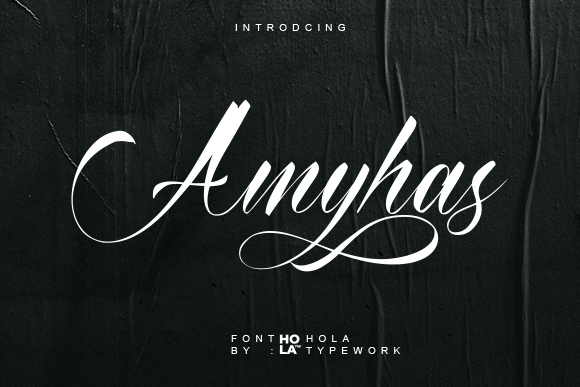
I still remember the frustration of working on a wedding invitation project, determined to find the perfect font that would make it stand out. My client wanted something elegant, modern, and romantic – a font that would make their special day feel truly unforgettable. After hours of scouring the internet, I stumbled upon Amyhas Font ✨. It was love at first sight! With its smooth curves, stylish swashes, and luxurious feel, I knew I had found the one.
Amyhas Font: A Comprehensive Review
Amyhas Font is an elegant and modern signature script font that brings a touch of sophistication to any design project. Inspired by handwritten calligraphy, this font is perfect for designers, crafters, and creative hobbyists looking to add a luxurious and romantic feel to their work.
What I Love About Amyhas Font
- ✨ Elegant and modern design with smooth curves and stylish swashes
- ✅ Perfect for logos, branding, wedding invitations, fashion projects, social media, quotes, and premium typography designs
- ✅ Easy to use and adds a timeless, sophisticated touch to any creative work
- ✅ Inspired by handwritten calligraphy, giving it a unique and luxurious feel
While Amyhas Font is an amazing font, there are a few things to keep in mind ⚠️:
- 🤔 Some users may find the font a bit too ornate for certain projects, such as body text or long-form content
- ⚠️ The font’s swashes and stylistic alternates may not work well with all design software or platforms
- Experiment with Amyhas Font‘s OpenType features, such as swashes and stylistic alternates, to add more personality to your design
The Designer Inspiration Behind Amyhas Font
Amyhas Font was inspired by the art of handwritten calligraphy. The designer, who wishes to remain anonymous, was fascinated by the beauty and elegance of handwritten scripts and sought to create a font that would capture the essence of this art form. With Amyhas Font, the designer aimed to create a font that would be both luxurious and romantic, perfect for adding a touch of sophistication to any design project.
| What is Amyhas Font? | Amyhas Font is an elegant and modern signature script font inspired by handwritten calligraphy. |
| What can I use Amyhas Font for? | You can use Amyhas Font for logos, branding, wedding invitations, fashion projects, social media, quotes, and premium typography designs. |
| Is Amyhas Font easy to use? | Yes, Amyhas Font is easy to use and adds a timeless, sophisticated touch to any creative work. |